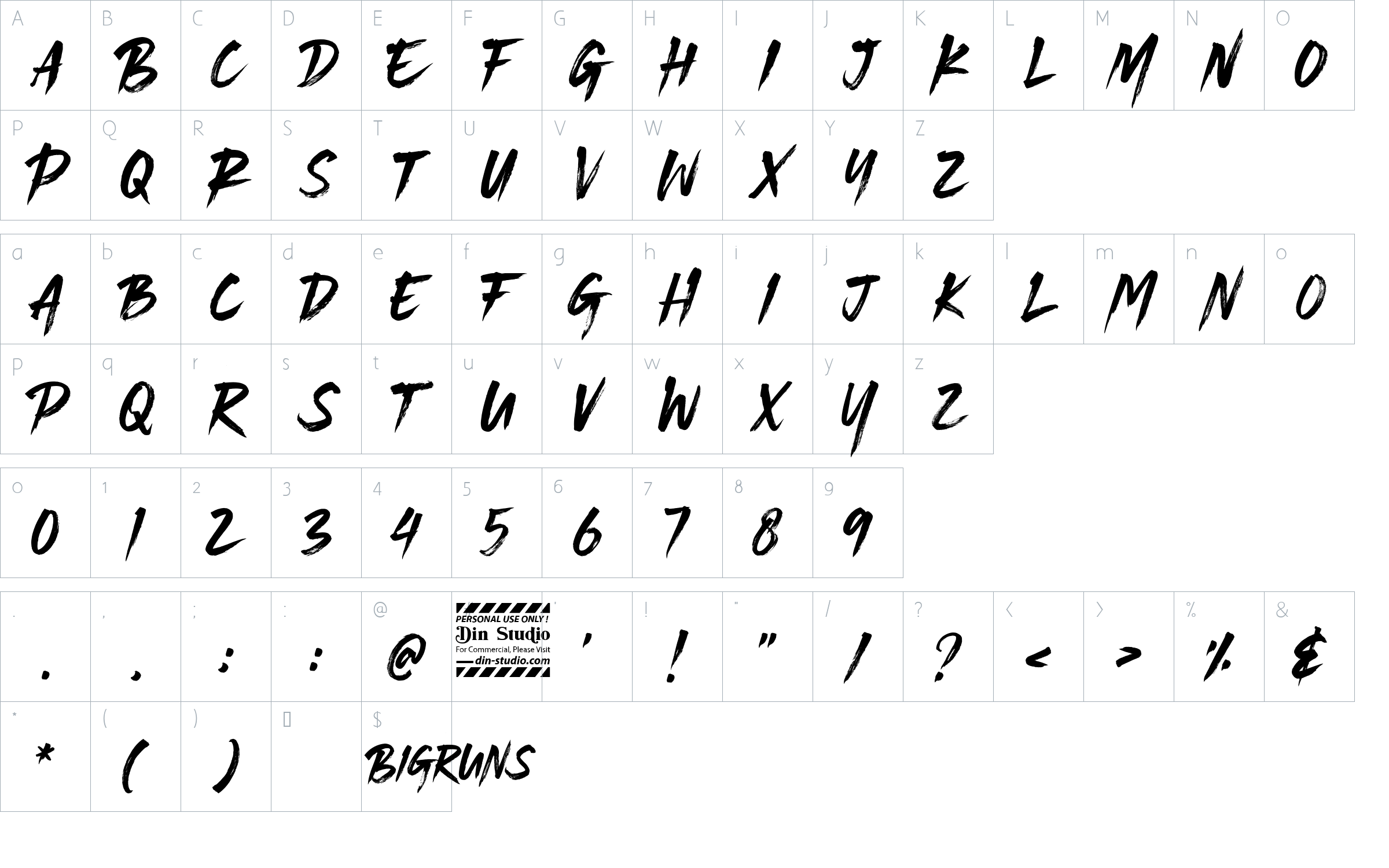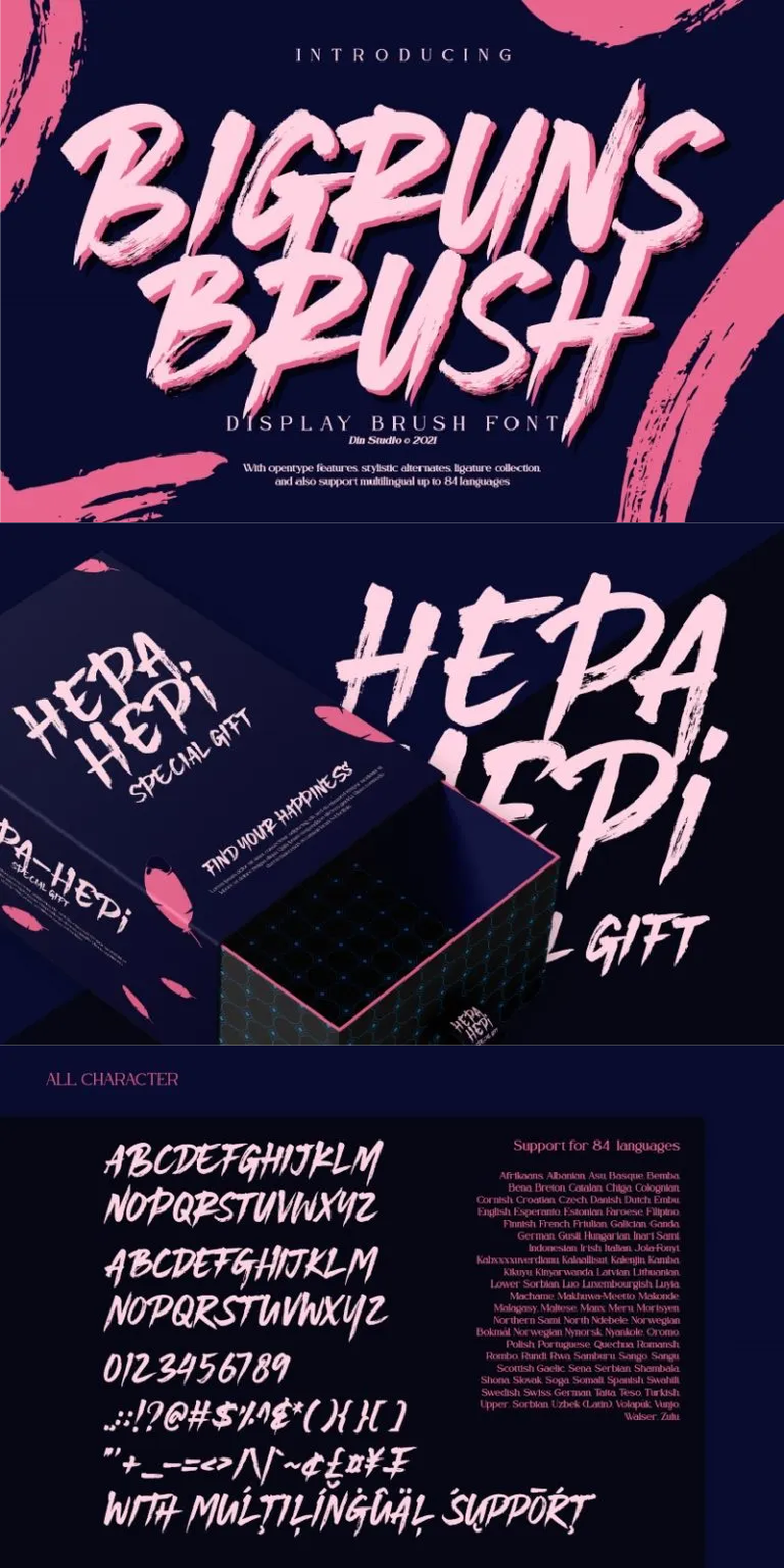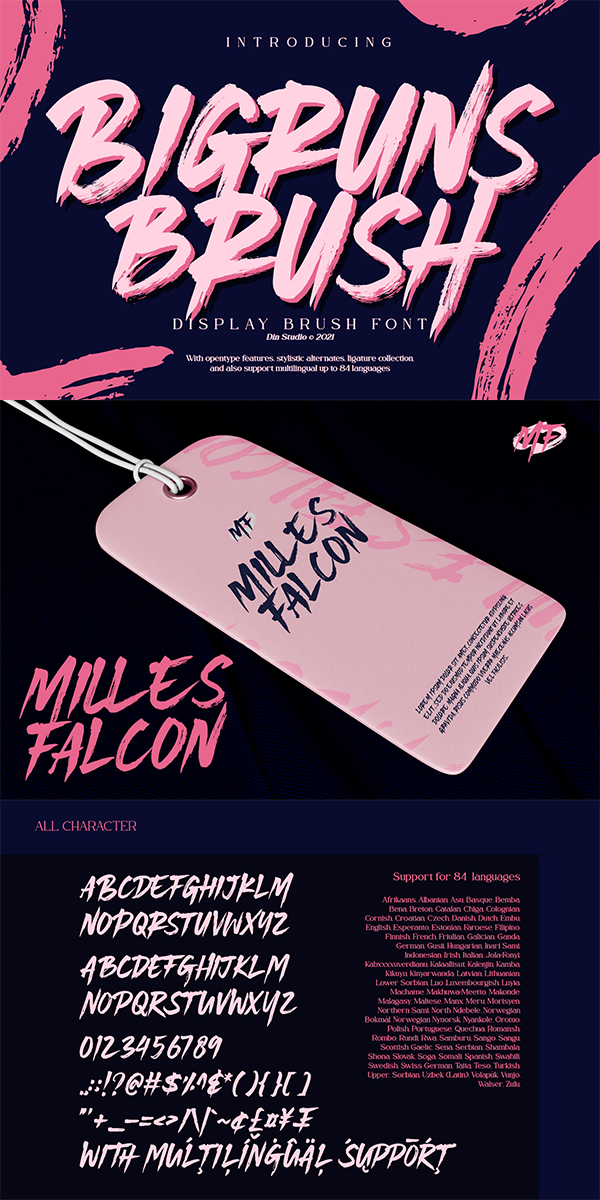
Bigruns Brush Font
About Bigruns Brush
Bigruns Brush’ – A Display Brush Font.
Bigruns Brush is a display font along with a gorgeous handcrafted script brush font that works together in a perfect harmony. This font is all made in the uppercase which is comfortable to see and is easy to read. It is designed primarily as a captivating font to add the right amount of modernity and style and the best choice to ensure a great font matching your designs and projects! It is also well suited to titles, poster designs, branding, quotes, logos, etc.
Our font always includes Multilingual Support to make your branding reach a global audience. See the previews above to get to know how to use them. Happy designing!